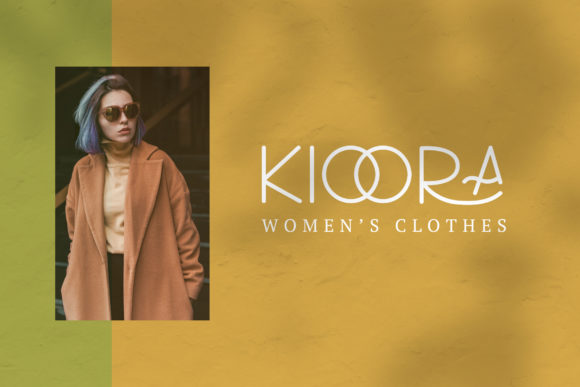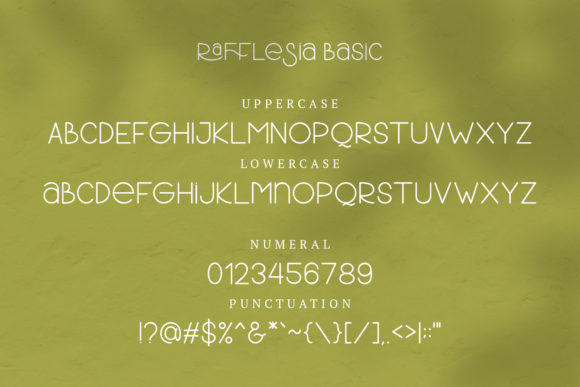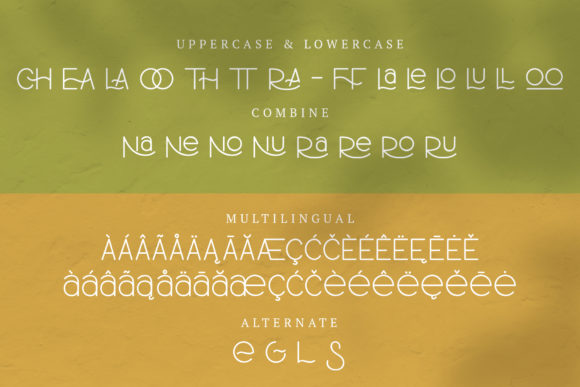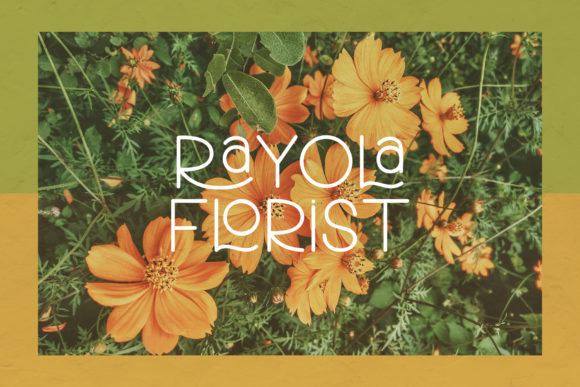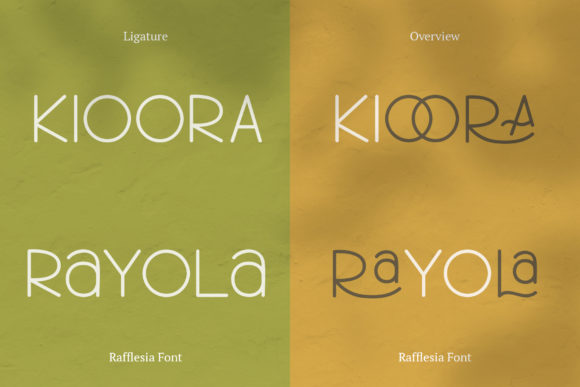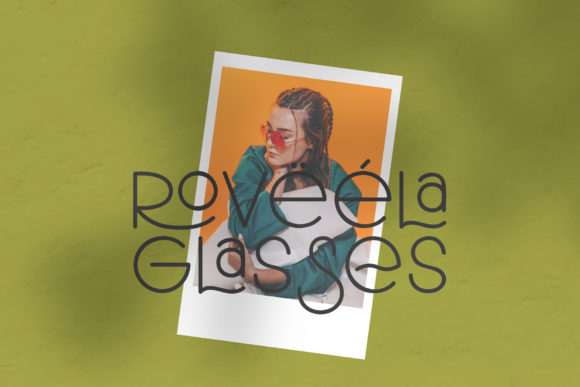
Rafflesia Font – Free Download
Introduction to Rafflesia Font
Rafflesia is a thin and elegant sans serif font.
Simple but with a strong visual effect, this font will instantly make your creation more appealing than any others .
Key Features of Rafflesia Font